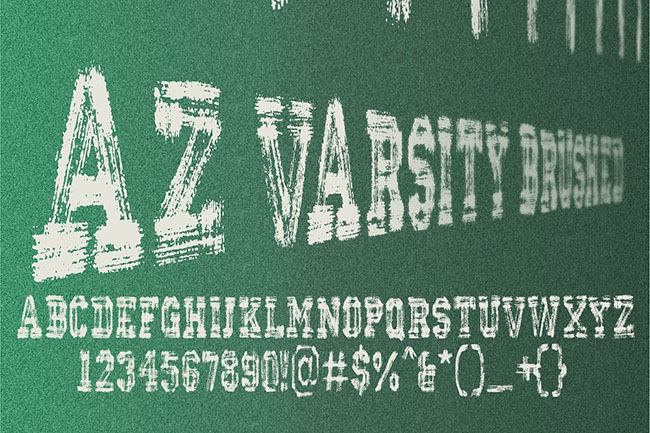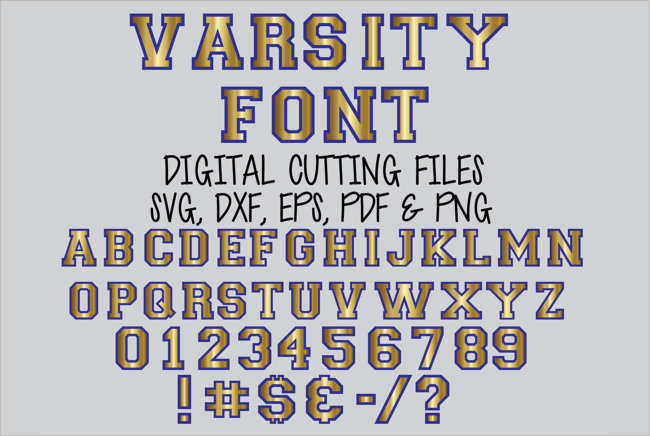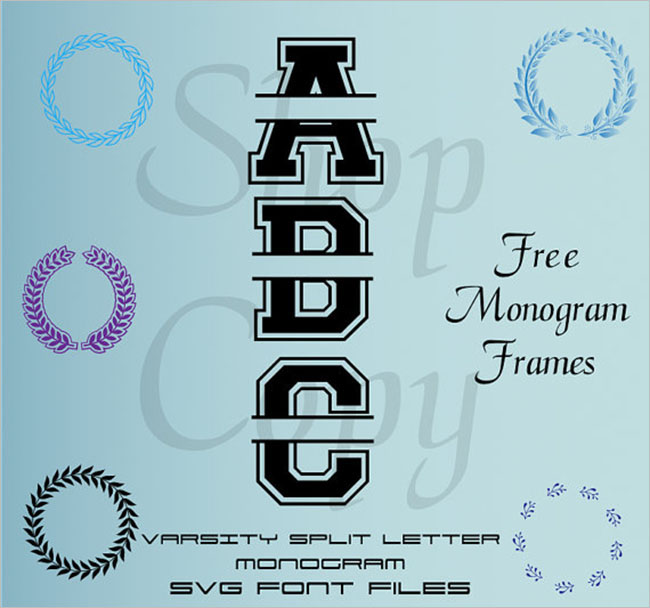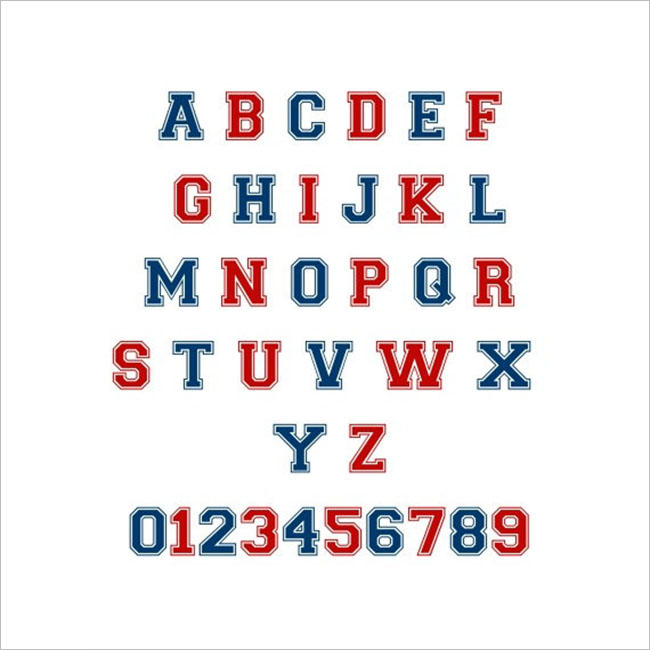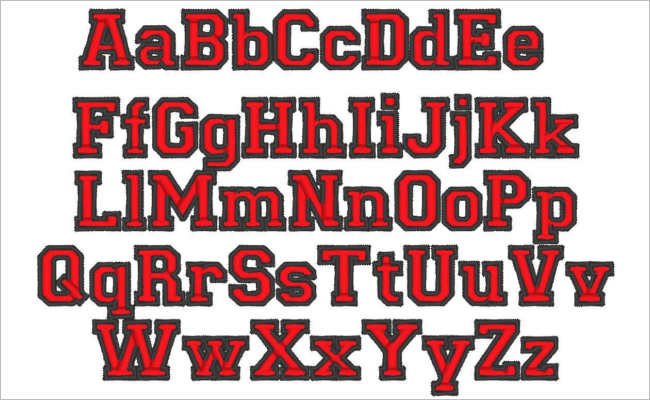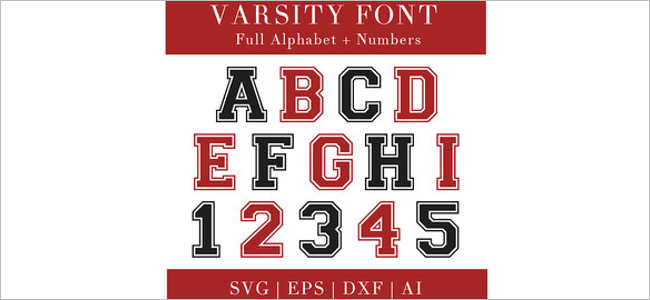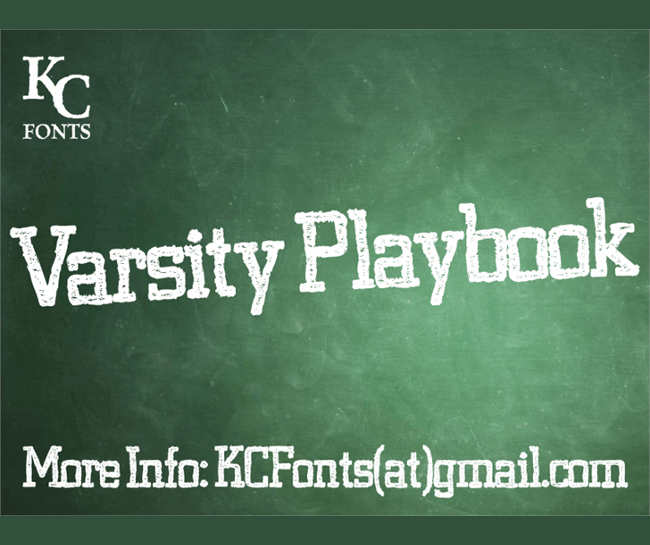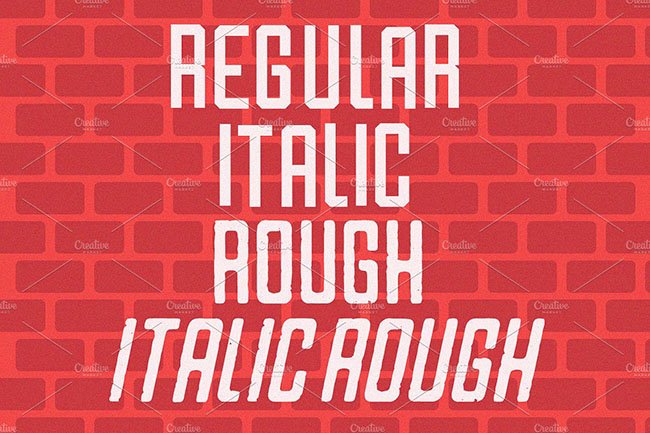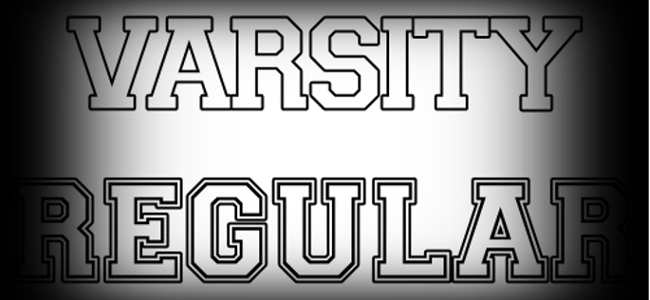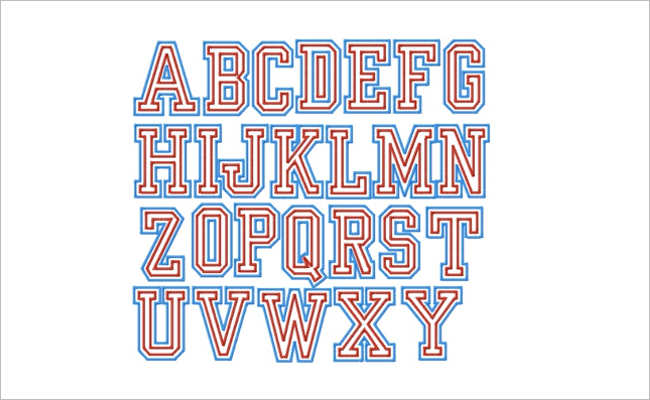
25+ Handy Varsity Font Collection
Fonts are more than just letters on a page; they are powerful tools that can convey tone, personality, and style. When it comes to creating designs with a touch of nostalgia and classic appeal, varsity fonts are a go-to choice. These fonts, inspired by the lettering found on traditional sports jerseys and university apparel, exude a sense of athleticism, camaraderie, and vintage charm. In this article, we’ll explore the allure of varsity fonts and how they can enhance your designs.
Capturing Tradition: The Timeless Appeal of Varsity Fonts
Handy Varsity fonts evoke a sense of tradition and heritage, harkening back to the golden days of collegiate sports and academic excellence. With their bold, blocky letterforms and distinctive serifs, these fonts instantly command attention and convey a sense of authority. Whether you’re designing a poster for a sporting event, creating branding for a retro-inspired product, or crafting a vintage-themed invitation, varsity fonts add a touch of old-school flair that resonates with audiences of all ages.
Versatility in Design: From Athletics to Academia
While varsity fonts are synonymous with sports, their versatility extends far beyond the playing field. These fonts are equally at home in academic settings, lending a scholarly aesthetic to presentations, posters, and educational materials. Whether you’re designing a flyer for a school event or creating graphics for a classroom bulletin board, varsity fonts can infuse your designs with a sense of academic prestige and intellectualism.
Adding Character: Customization and Variation
One of the appeals of varsity fonts lies in their customizability and variety. From classic block lettering to more ornate scripts, there’s a varsity font to suit every design need. Whether you prefer a clean, modern look or a vintage, weathered feel, varsity fonts offer a wide range of styles and variations to choose from. Additionally, many varsity fonts come with alternate characters, ligatures, and stylistic sets, allowing for further customization and creative expression.
Pairing and Composition: Creating Dynamic Designs
The key to effectively using varsity fonts lies in thoughtful pairing and composition. When combining varsity fonts with other typefaces and design elements, consider contrast, hierarchy, and readability. Pair bold varsity headlines with sleek, sans-serif body text for a modern twist, or combine vintage-inspired varsity scripts with decorative ornaments and illustrations for a nostalgic feel. Experiment with different combinations until you find the perfect balance of style and harmony.
Conclusion: Making a Statement with Varsity Fonts
In the world of design, fonts play a vital role in shaping the visual identity and impact of a project. Varsity fonts, with their timeless appeal and versatile nature, offer a unique opportunity to infuse designs with character, tradition, and style. Whether you’re creating graphics for a sports event, designing branding for a retro-themed product, or crafting academic materials with a scholarly flair, varsity fonts are a handy tool for elevating your design and making a lasting impression.